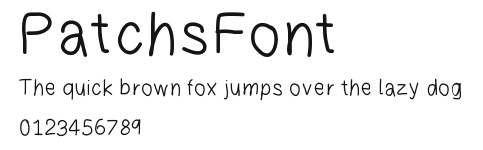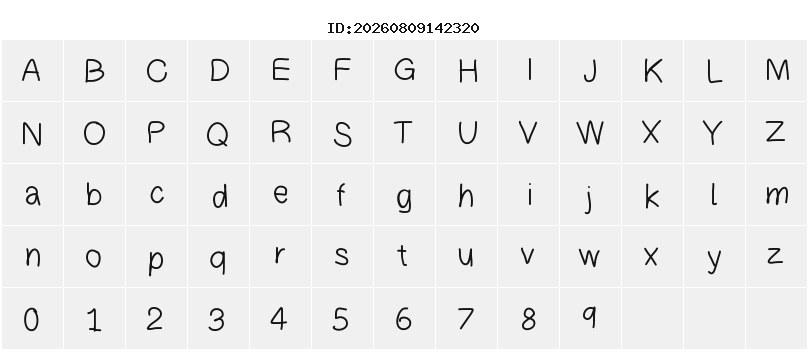
PatchsFont Preview
• Font Name: PatchsFont
• Full Font Name: PatchsFont
• PostScript Name: PatchsFont
About PatchsFont.ttf
PatchsFont.ttf is a modern, elegant sans-serif font designed for ultimate readability and visual harmony. Perfect for branding, headlines, web design, and print materials.